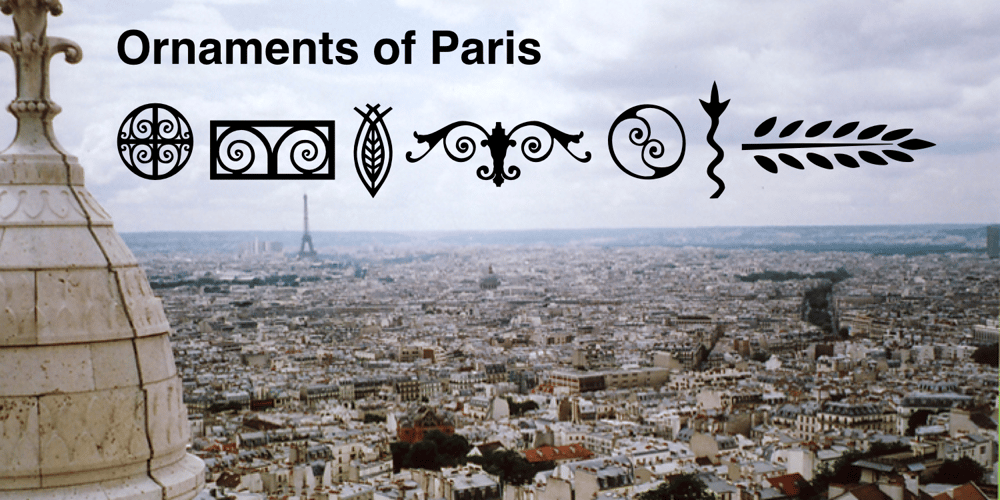
Ornaments of Paris Font Family was designed by Rae Kaiser and published by Outside the Line. Ornaments of Paris contains 1 styles and family package options. The Ornaments of Paris were inspired by a recent trip to Paris. Each tiny Paris icon is distilled from a church, a fence, a doorway, a railing, the Louvre, graphics in a store window, a feeling, a rainy day, a glass of wine… For more of the similar see Fleurons of Paris.